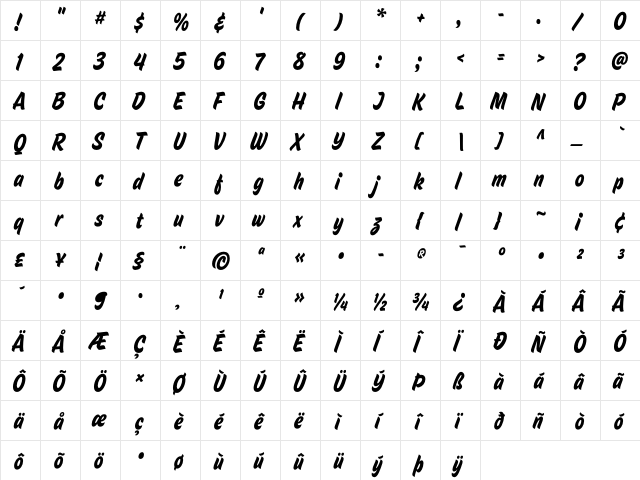
HouseMovements-Sign Regular
| Designer | House Industries |
Design Context for HouseMovements-Sign Typeface
HouseMovements-Sign is a composed and adaptable typeface that performs quietly and consistently across a wide range of design contexts.